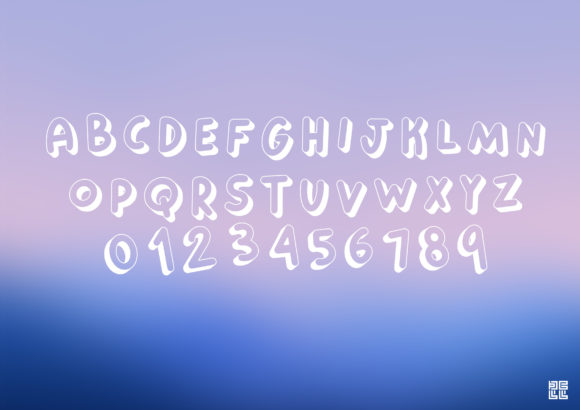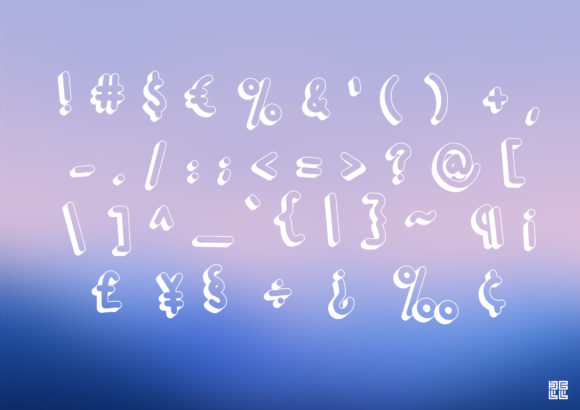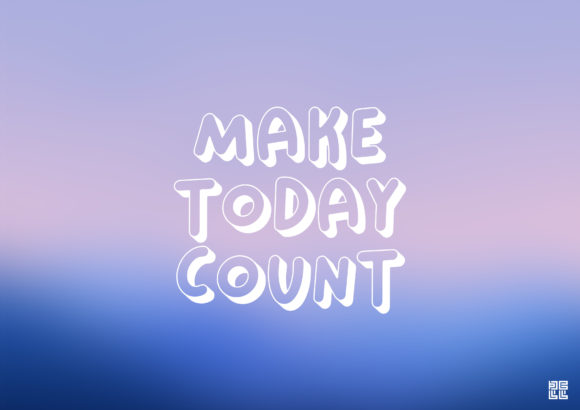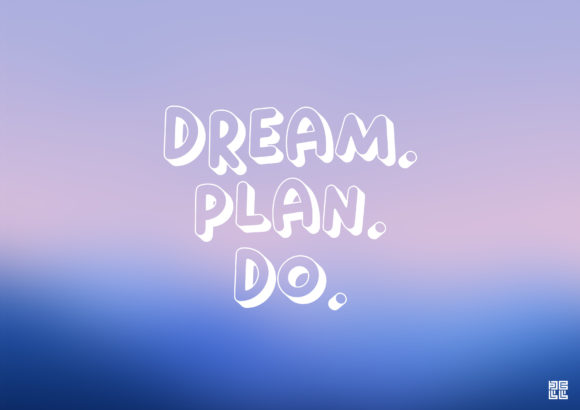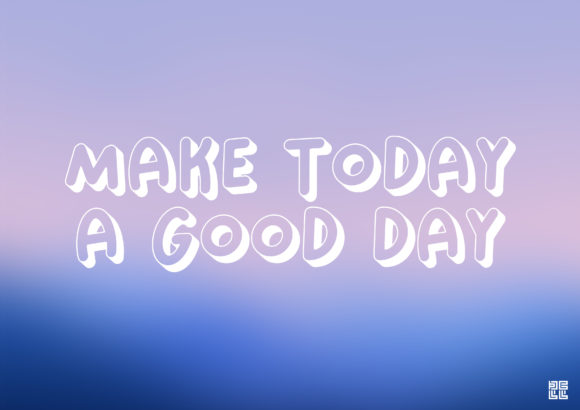
Introducing Gemini Moon Font: The Ultimate Choice for Fun and Quirky Designs
Are you a designer or crafter looking for a font that can add a touch of playfulness and whimsy to your projects? Look no further than the Gemini Moon Font! This super fun, quirky, and childish themed display font is perfect for child-related projects, cute quotes, and so much more.
What Makes Gemini Moon Font So Special?
Gemini Moon Font is a unique and eye-catching font that is sure to capture the attention of your audience. Its quirky and childish design makes it perfect for projects that require a touch of fun and playfulness. Whether you’re working on a children’s book, a nursery decoration, or a social media post, this font is sure to bring a smile to people’s faces.
Features of Gemini Moon Font
- Super Fun and Quirky Design: Gemini Moon Font has a unique and playful design that is sure to stand out from the crowd.
- Childish Themed: This font is perfect for child-related projects, such as children’s books, nursery decorations, and kids’ party invitations.
- Display Font: Gemini Moon Font is a display font, making it perfect for headlines, titles, and quotes.
- Easy to Read: Despite its quirky design, Gemini Moon Font is easy to read, making it perfect for use in a variety of projects.
Uses of Gemini Moon Font
Gemini Moon Font is a versatile font that can be used in a variety of projects, including:
- Children’s Books: Add a touch of whimsy and fun to your children’s book with Gemini Moon Font.
- Nursery Decorations: Use Gemini Moon Font to create cute and playful nursery decorations, such as wall art and signs.
- Cute Quotes: Add a touch of fun and playfulness to your social media posts with Gemini Moon Font.
- Kids’ Party Invitations: Create fun and playful kids’ party invitations with Gemini Moon Font.
- Branding and Packaging: Use Gemini Moon Font to add a touch of whimsy and fun to your branding and packaging.
Tips for Using Gemini Moon Font
Here are a few tips for using Gemini Moon Font:
- Use it for Headlines and Titles: Gemini Moon Font is perfect for use in headlines and titles, where its quirky design can really shine.
- Pair it with Other Fonts: Gemini Moon Font pairs well with other fonts, such as sans-serif fonts and script fonts.
- Use it in Color: Gemini Moon Font looks great in color, so don’t be afraid to experiment with different colors and gradients.
Gemini Moon Font is a unique and eye-catching font that is sure to add a touch of fun and playfulness to your designs. Its quirky and childish design makes it perfect for child-related projects, cute quotes, and so much more. With its ease of use and versatility, Gemini Moon Font is a must-have font for designers and crafters.